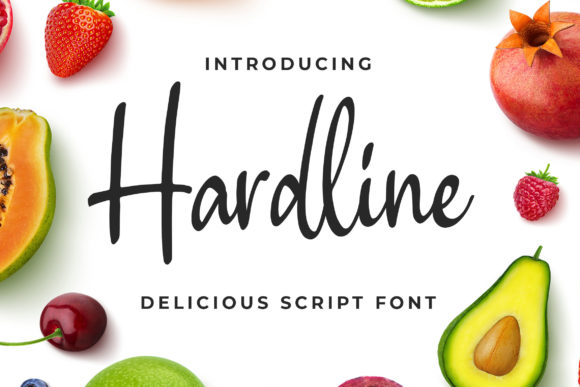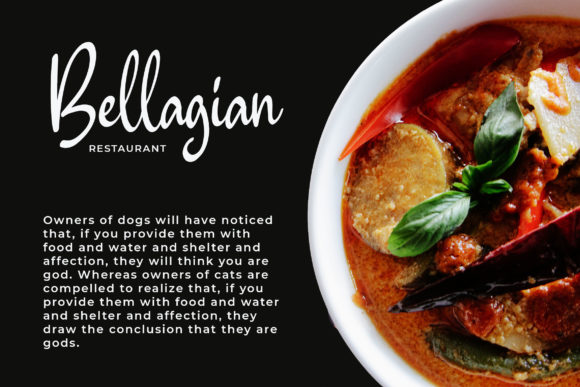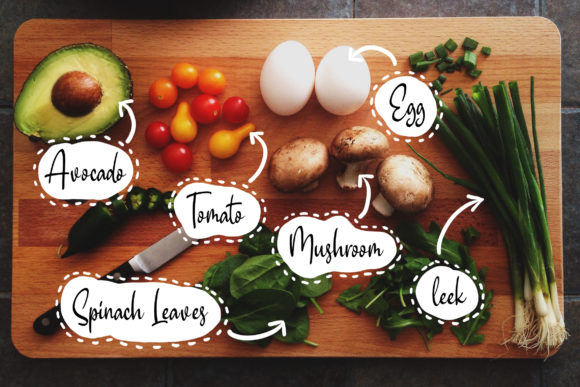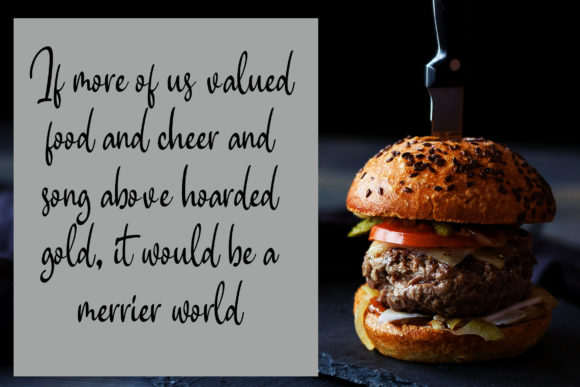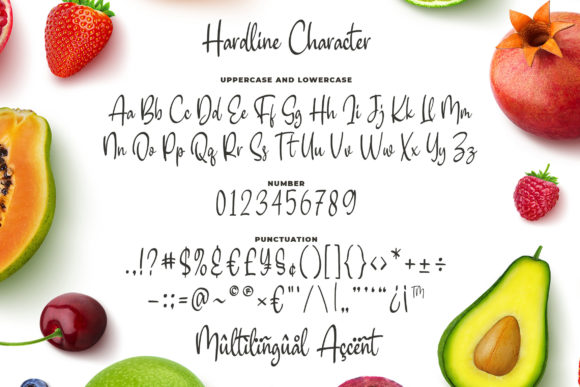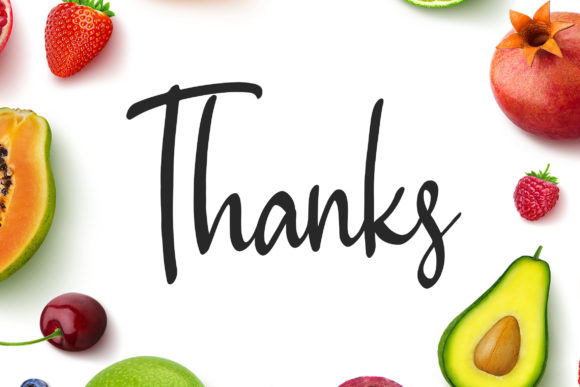
Hardline Font
About Hardline Font
Hardline is a delicious script font that is perfect for a wide variety of projects. Fall in love with its modern charm!